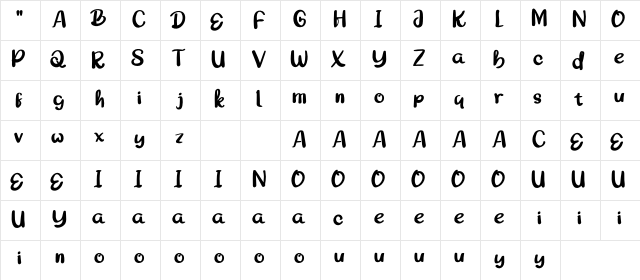
SHORTERdemo Regular
Design Context for SHORTERdemo Typeface
SHORTERdemo is a composed and adaptable typeface that performs quietly and consistently across a wide range of design contexts.